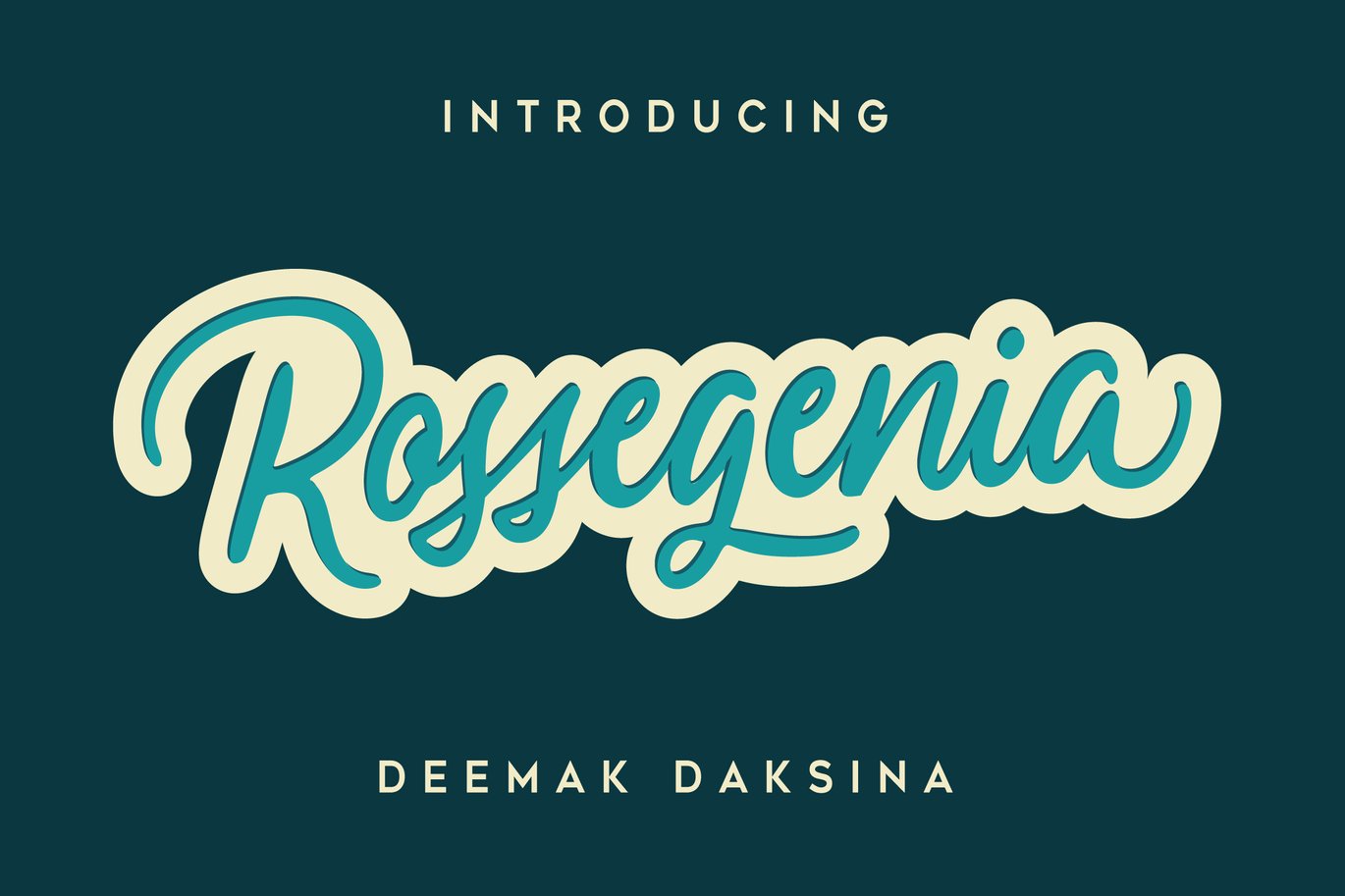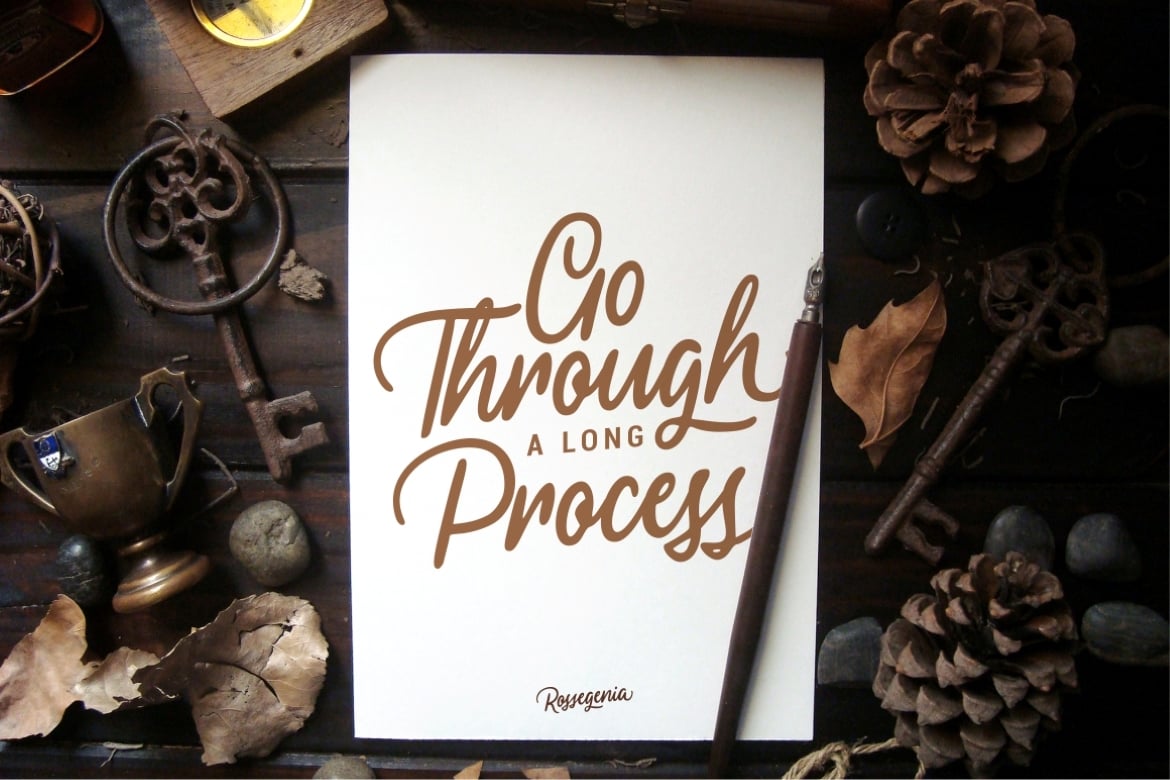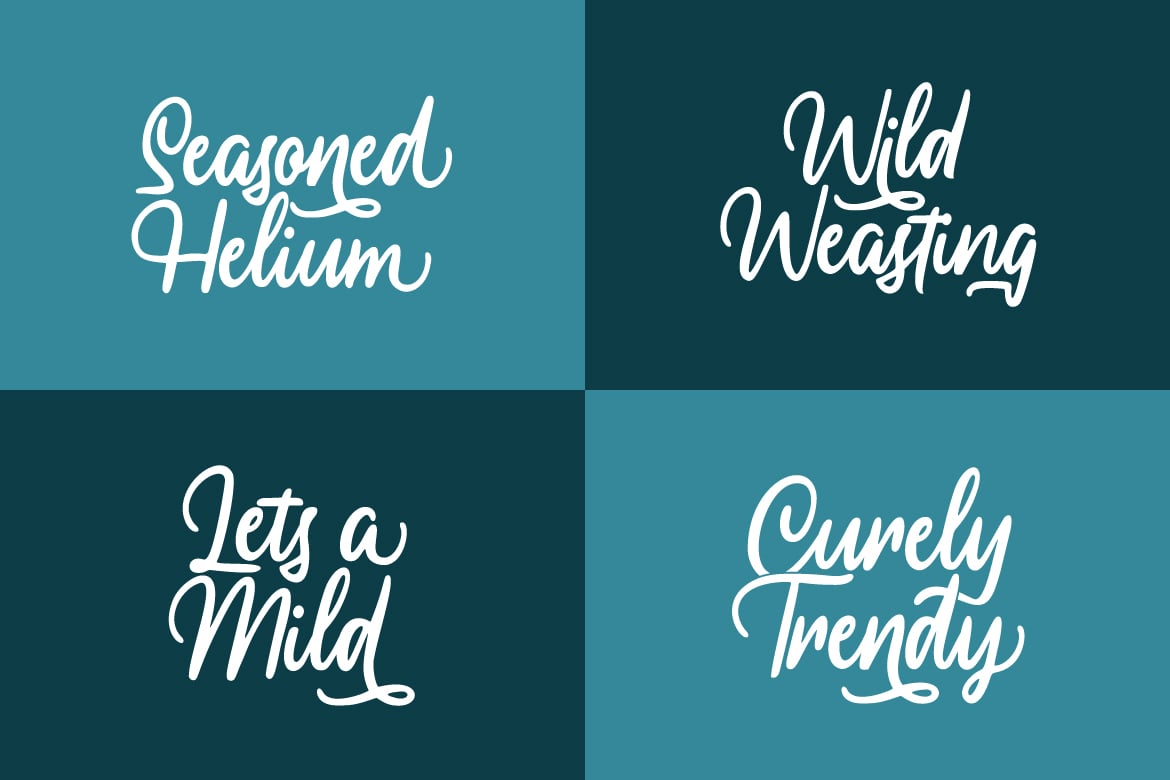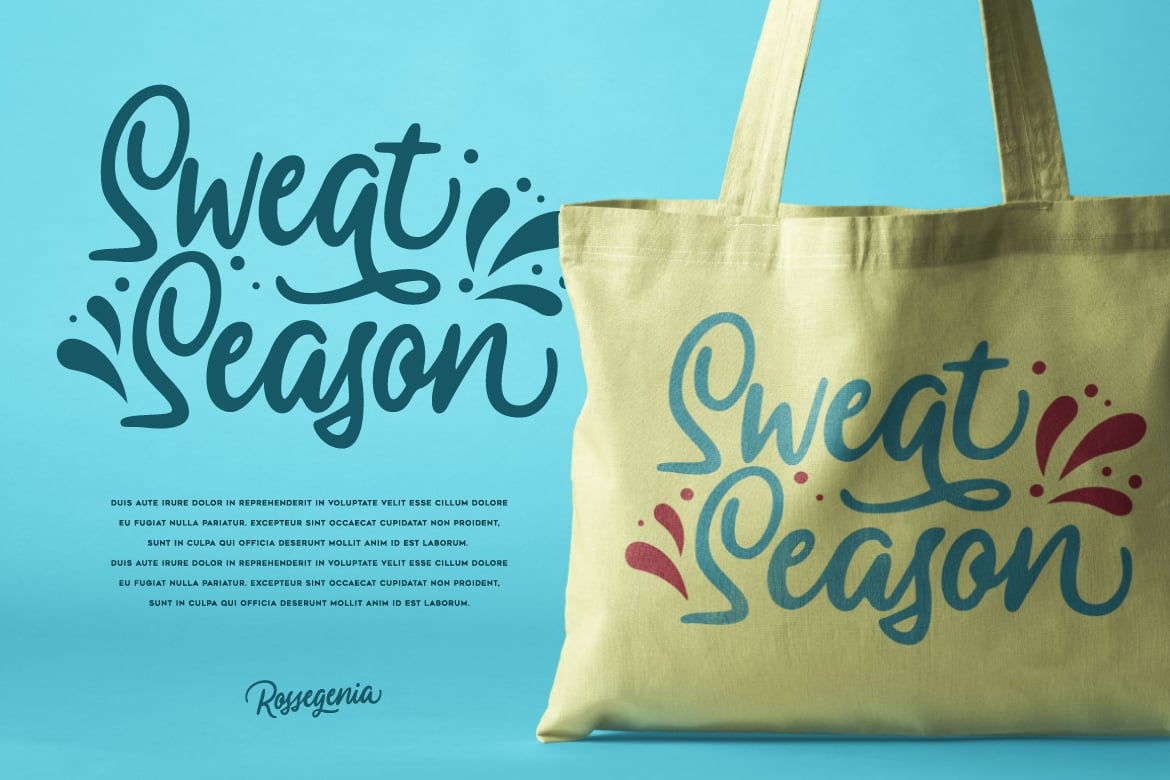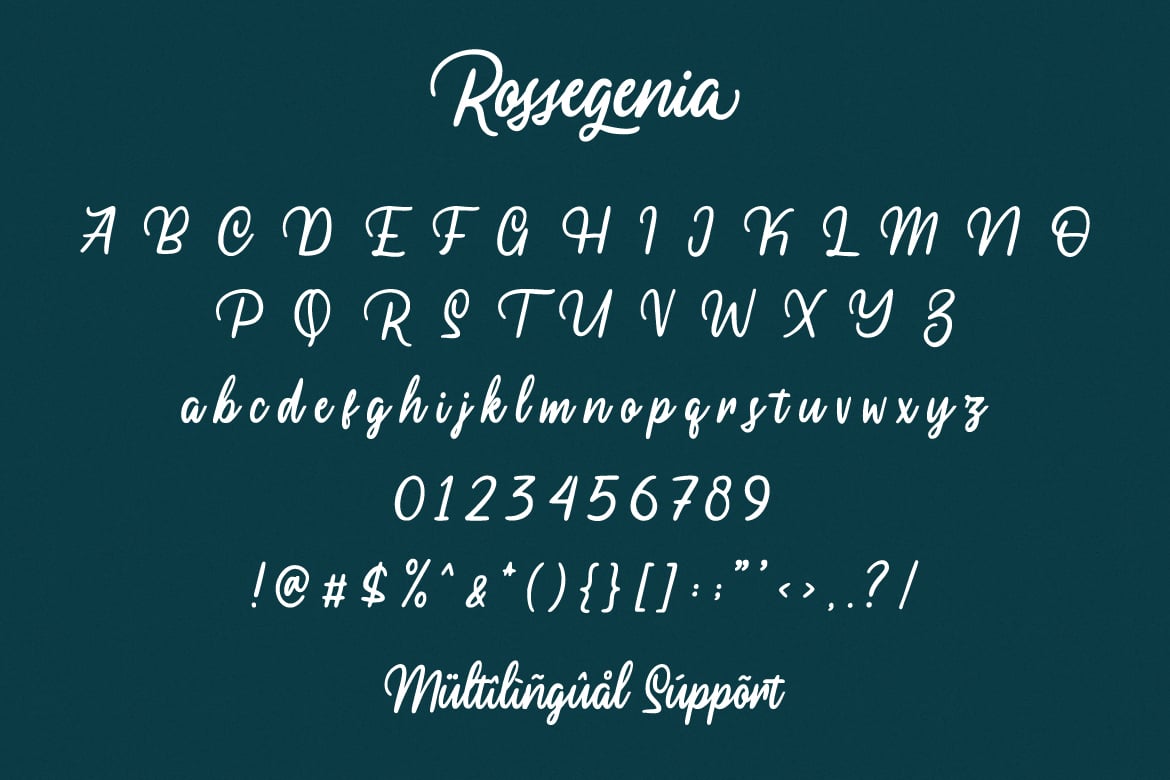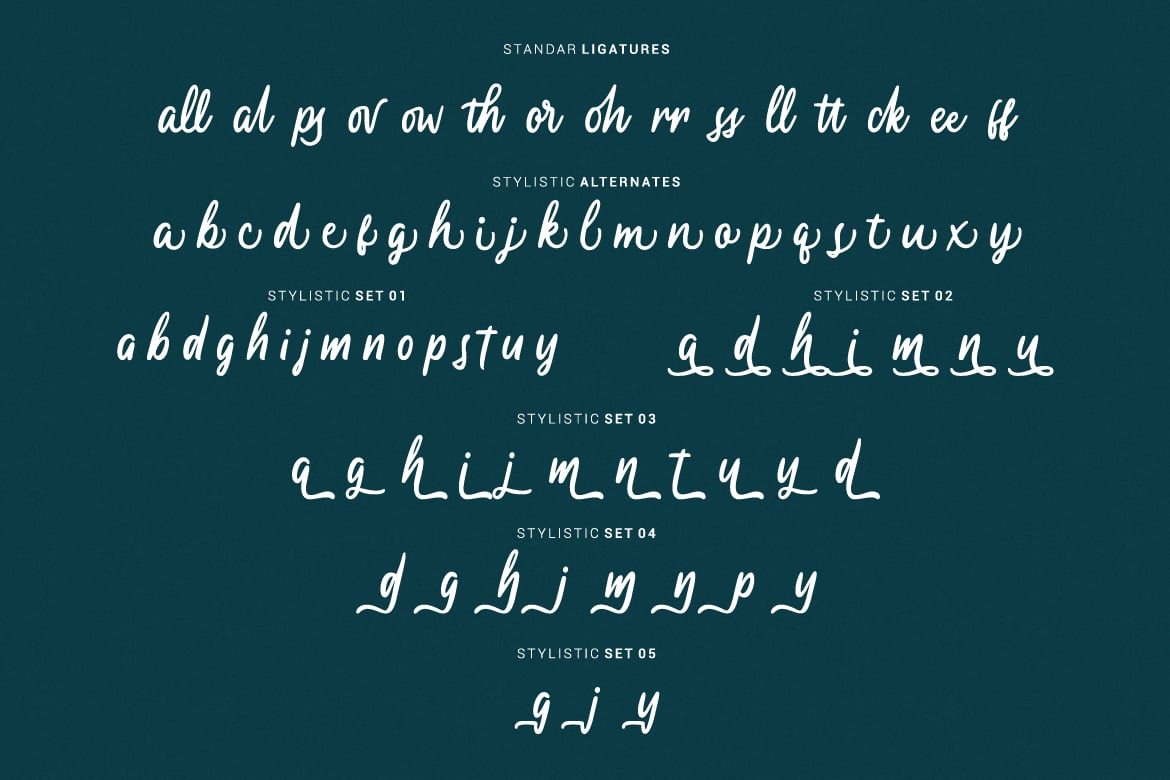
Rossegenia – Cursive Script Font
Rossegenia is a beautiful cursive script that we crafted to be relevant and suitable for all ages female, we add stylist alternate for the alphabets to make it stand out and grab attention the audiences. This is bold feminine font to show the confident & comfort in every usage.
- Ligature, and Alternate